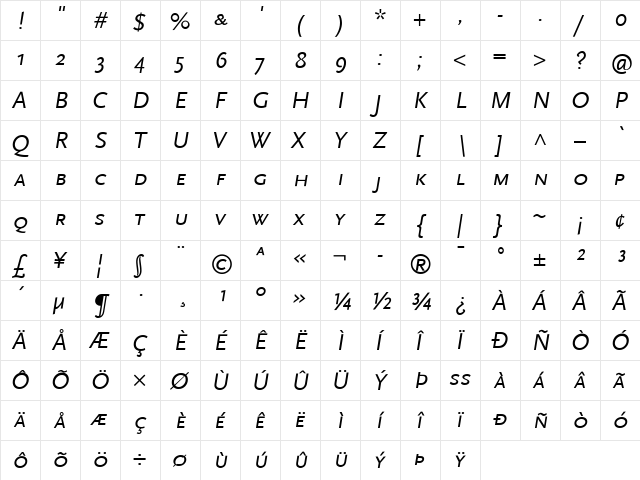
Scala Sans Regular Italic
Design Context for Scala Sans Typeface
Scala Sans is a composed and adaptable typeface that performs quietly and consistently across a wide range of design contexts. The dynamic lean of this cut emphasises speed and emphasis in any layout.
Pro Tip: Use Scala Sans for emphasis, pull quotes, and subheadings where its slanted energy can add rhythm to the layout.